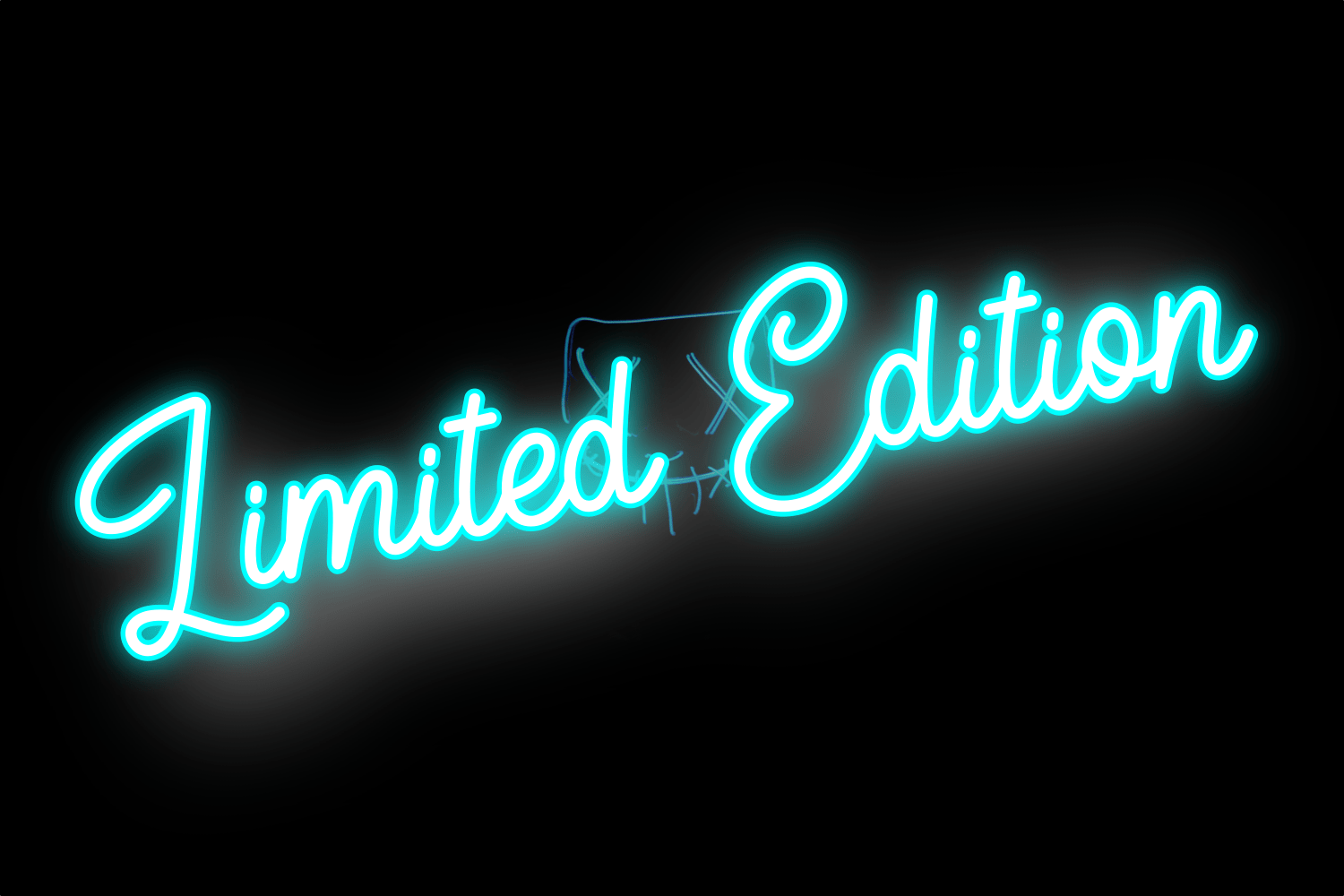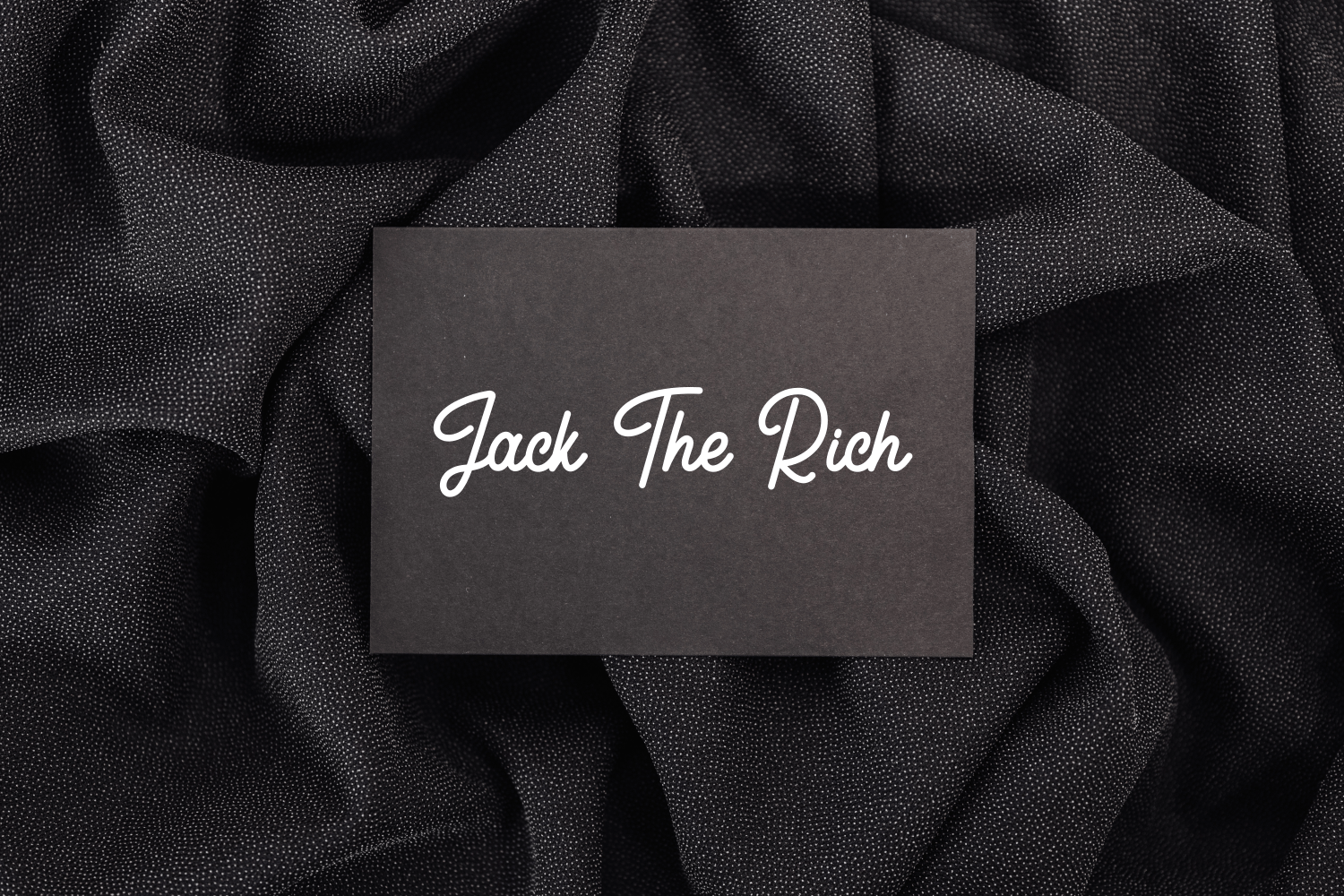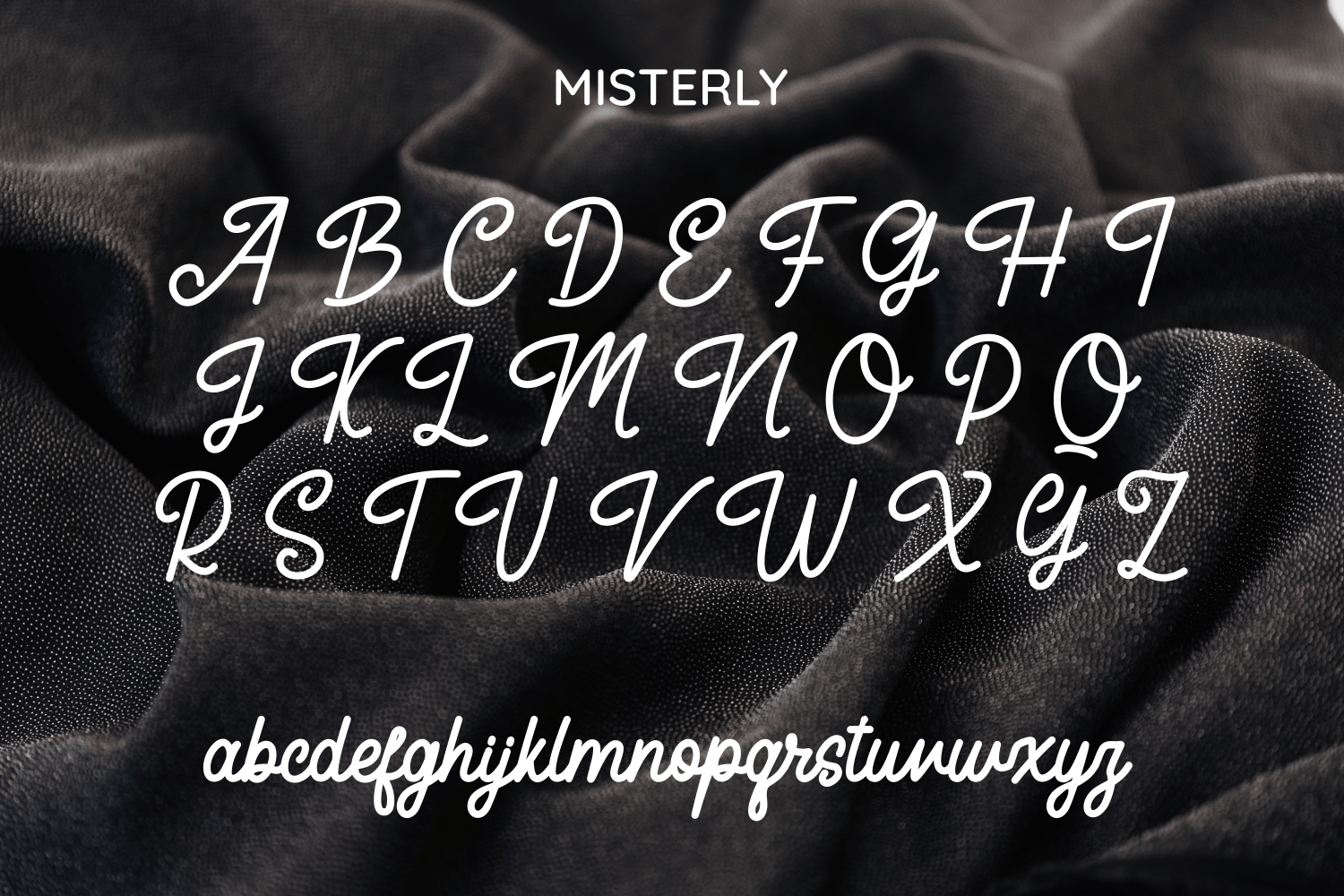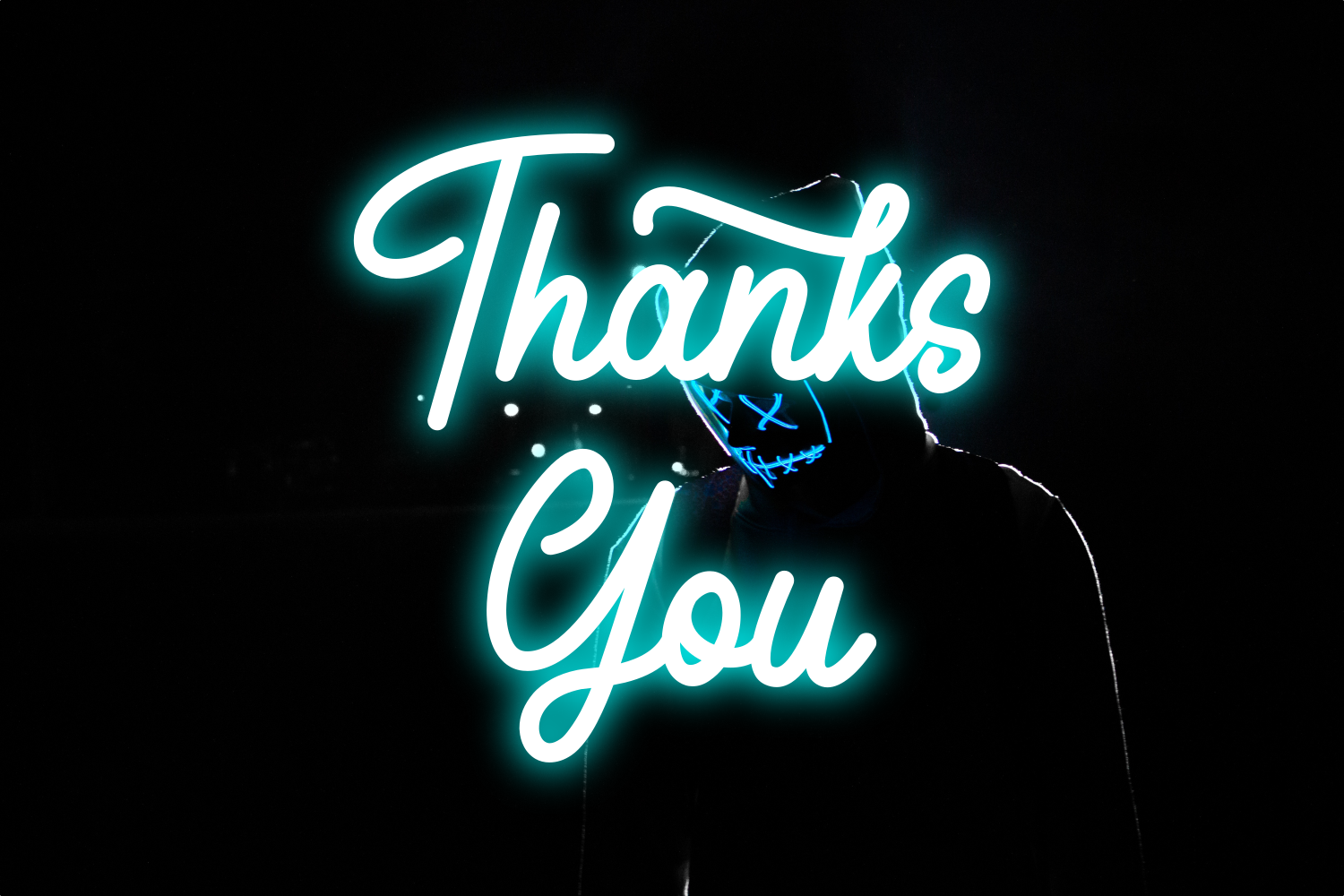
Misterly Script Font has a simple, elegant and modern style. Suitable for various projects such as t-shirt designs, stickers, book covers, logotypes, neon letters and more.